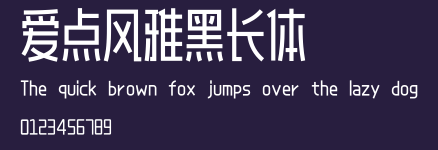
爱点风雅黑长体 Preview
• Font Name: 爱点风雅黑长体
• Font ID: AidianFengYaHeiChangTi:Version 1.000
• Full Font Name: 爱点风雅黑长体
• Version: Version 1.000;June 12, 2025;FontCreator 15.0.0.2970 64-bit
• PostScript Name: AidianFengYaHeiChangTi
• Character Count: 7219
• Designer: 李文达、陈嘉如
• Manufacturer: Aidian Fonts
About 爱点风雅黑长体.ttf
爱点风雅黑长体.ttf is a modern, elegant sans-serif font designed for ultimate readability and visual harmony. Perfect for branding, headlines, web design, and print materials.